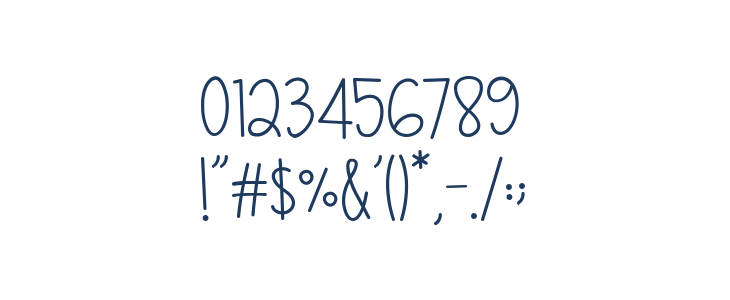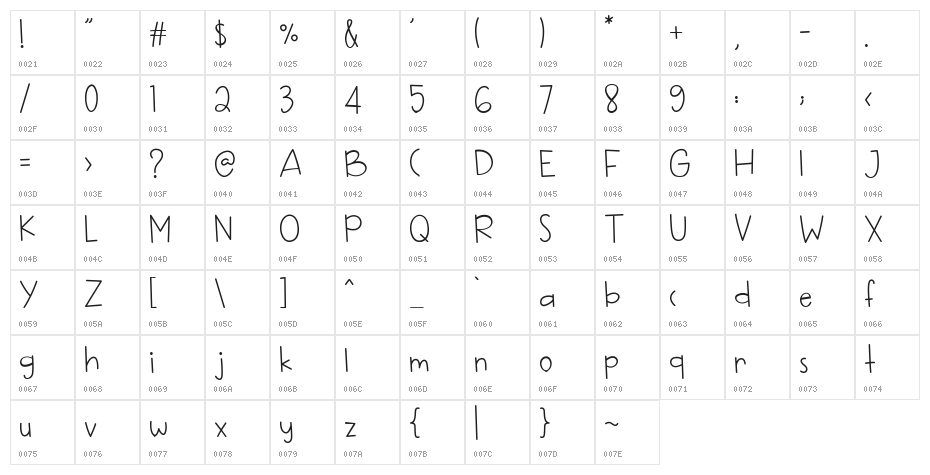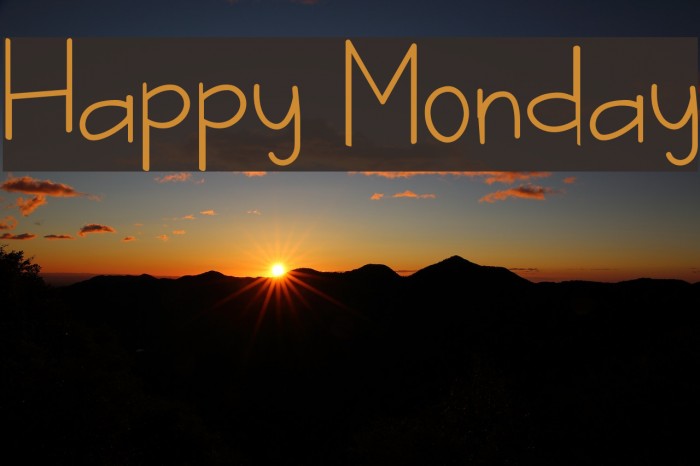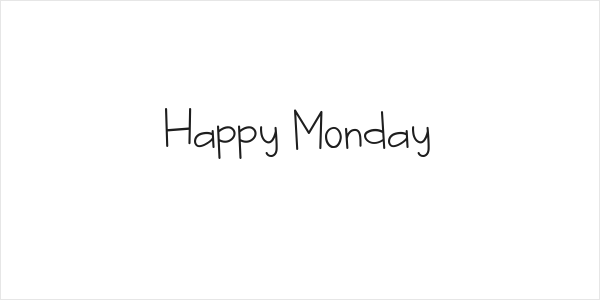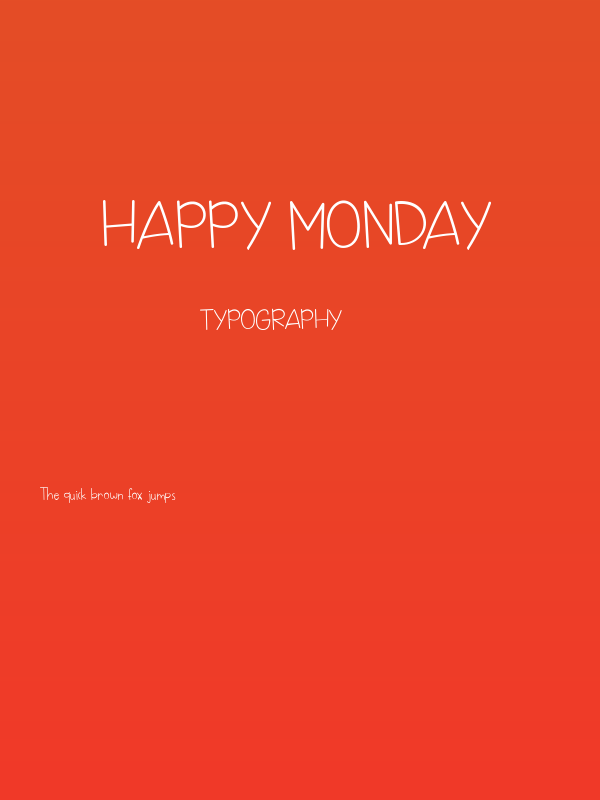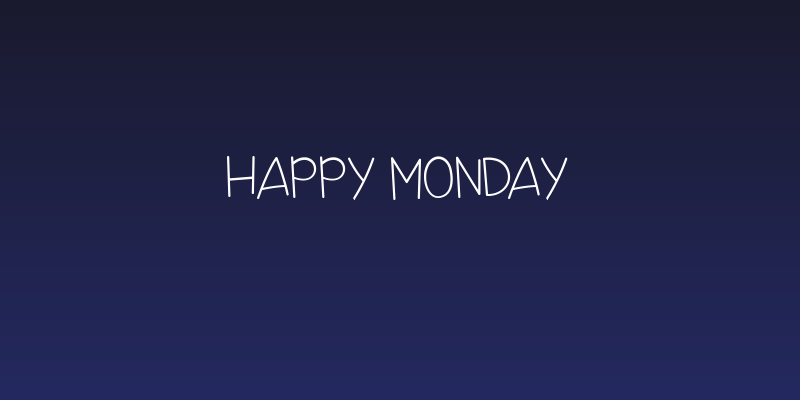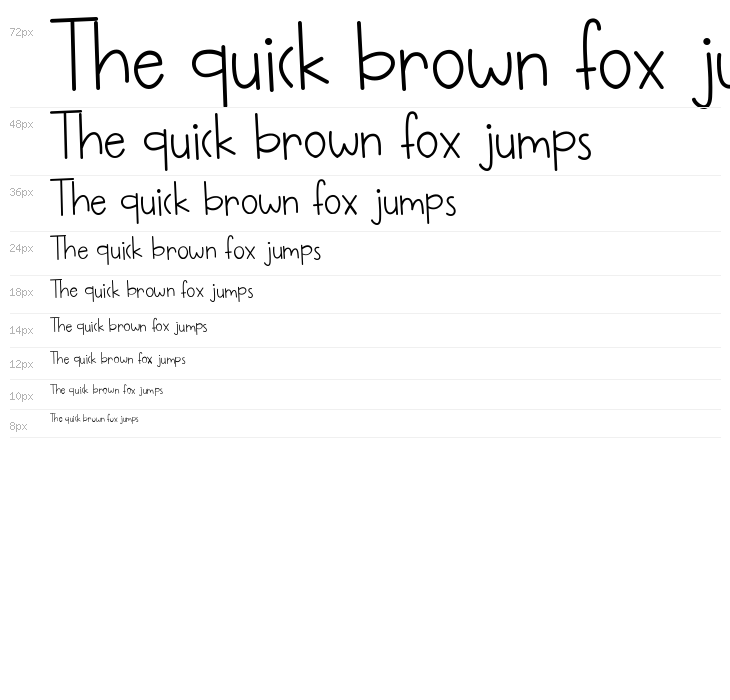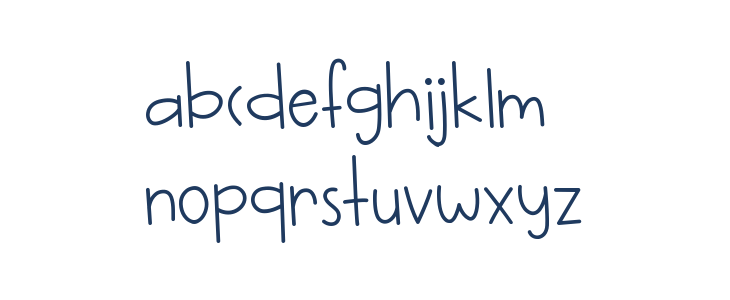
Happy Monday Font
Happy Monday Description
This font features a playful and casual handwritten style, characterized by its tall, narrow letters and rounded edges. The uppercase and lowercase letters maintain a consistent height, giving it a uniform appearance. The strokes are thin and evenly spaced, providing a clean and airy feel. The numerals and special characters complement the alphabet with similar design elements, ensuring coherence across all characters. This font exudes a friendly and approachable vibe, making it suitable for informal and creative projects.
| Proposed Projects | Ideal for greeting cards, children's books, playful branding, and social media graphics. |